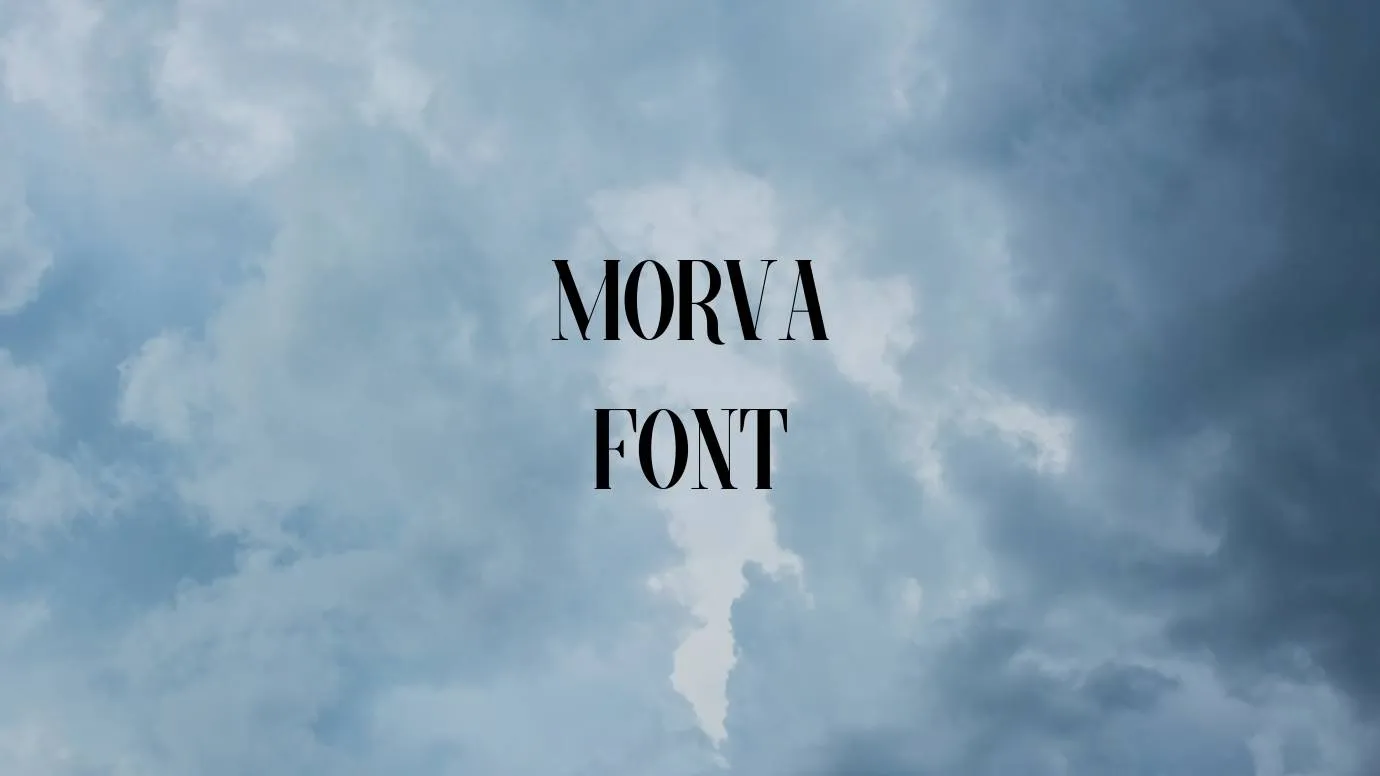
Morva Font Family is a straightforward and attention-grabbing typeface crafted by Alit Suarnegara and initially launched through Alit Design. The regular weight comprises more than a hundred stylish bold characters.
Morva Font
NameMorva Font
DesignerAlit Suarnegara
FoundryAlit Design
StyleSerif